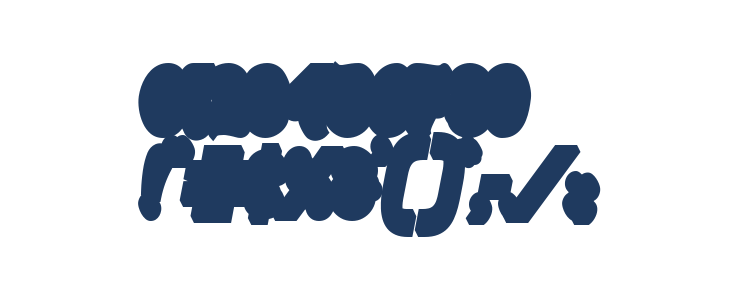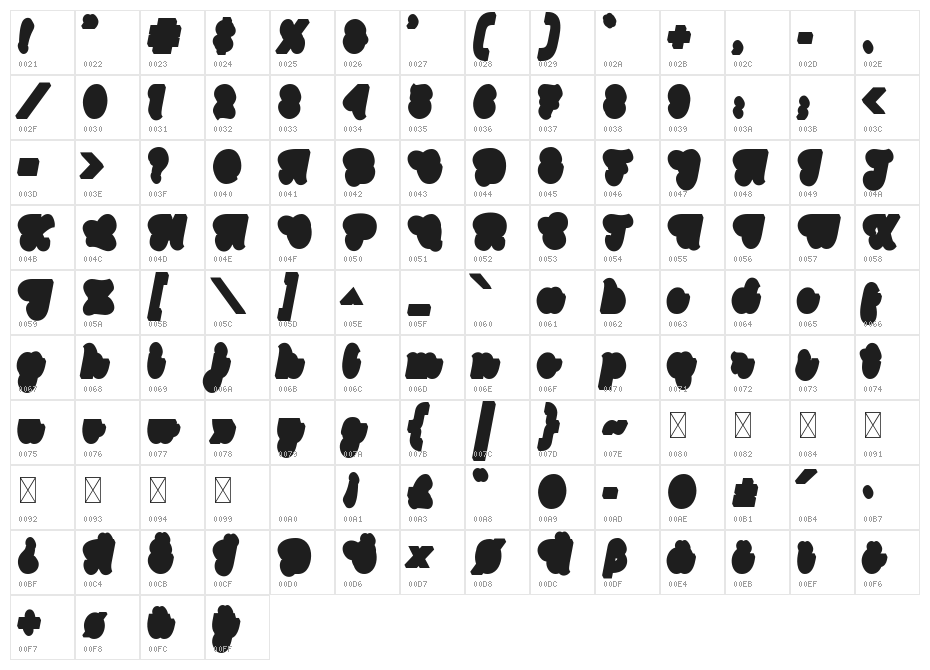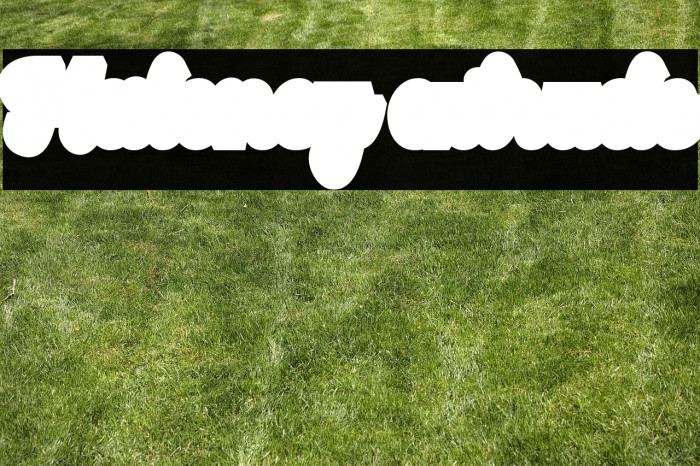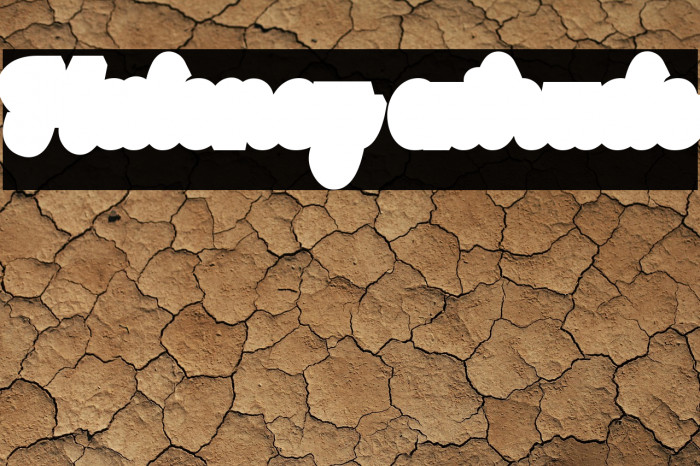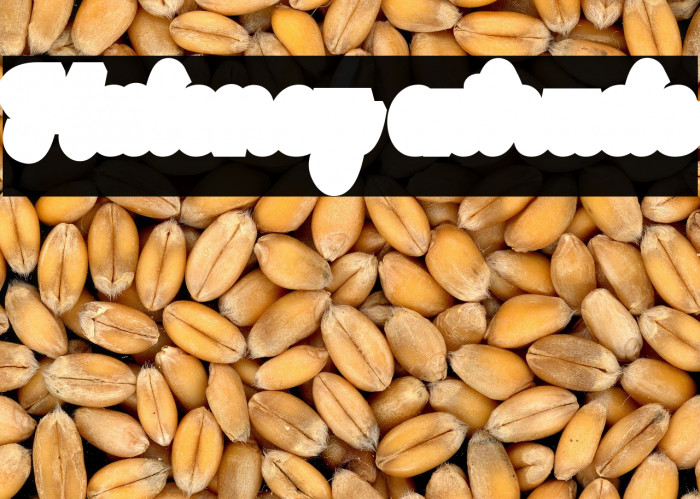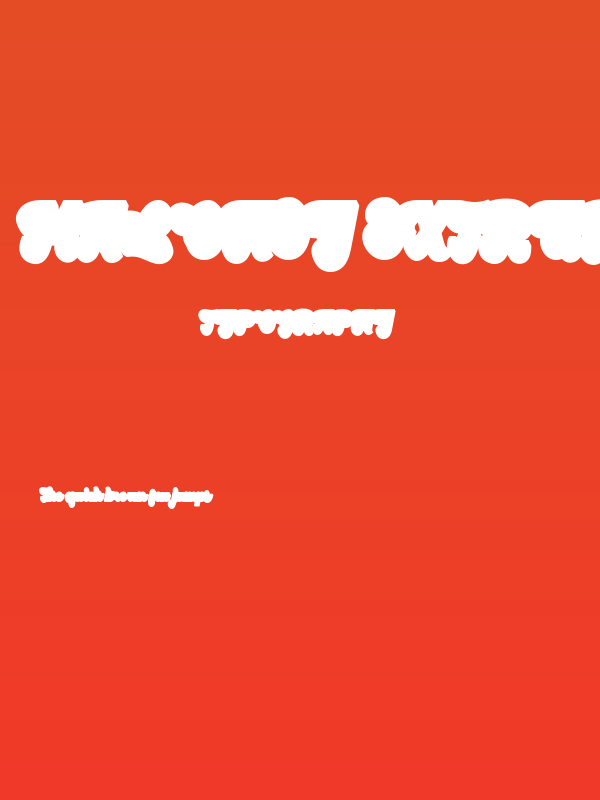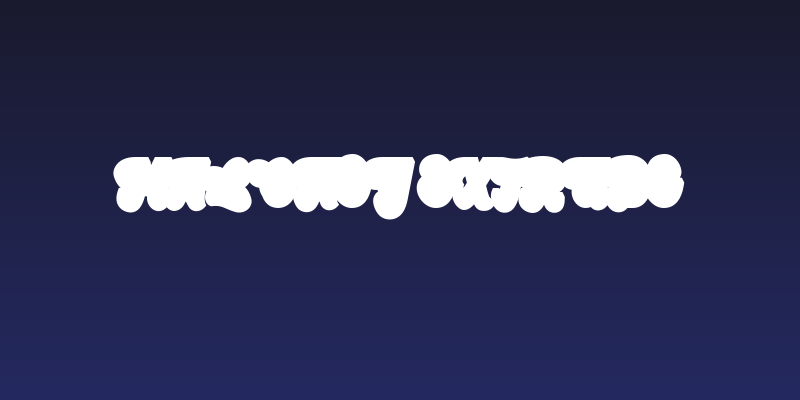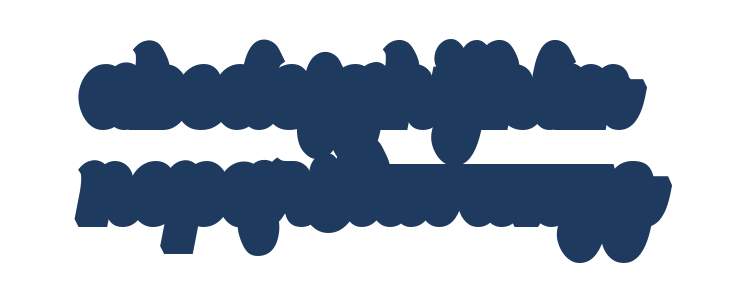
Maloney extrude Font
Maloney extrude Description
This font features a bold and playful design with a three-dimensional extruded effect, giving it a striking and dynamic appearance. The characters are rounded and thick, creating a sense of volume and depth. The style is reminiscent of retro or vintage aesthetics, making it suitable for projects that require a touch of nostalgia or a bold statement. The exaggerated thickness and shadowing add a unique flair, making it stand out in any design. The font's playful nature is balanced by its solid structure, ensuring readability while maintaining its decorative appeal.
| Proposed Projects | Ideal for posters, logos, headlines, and any design needing a bold, retro touch. |